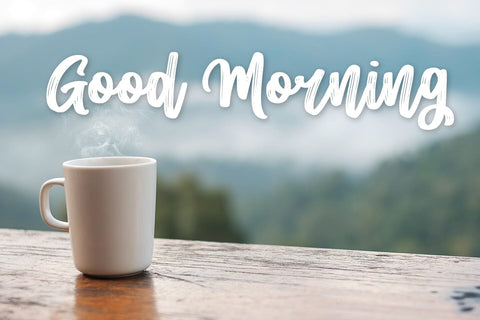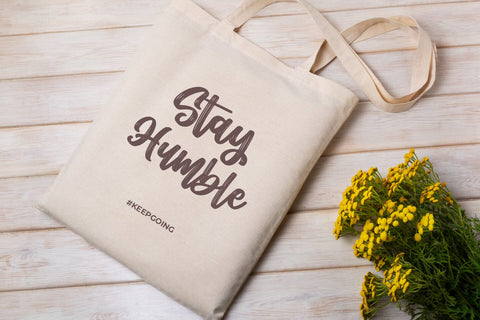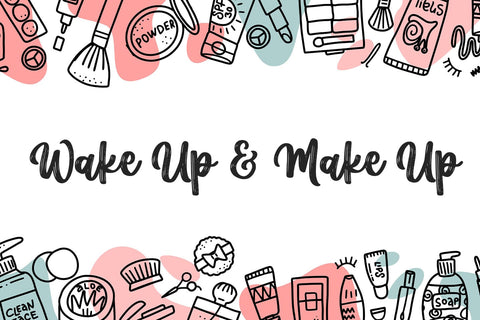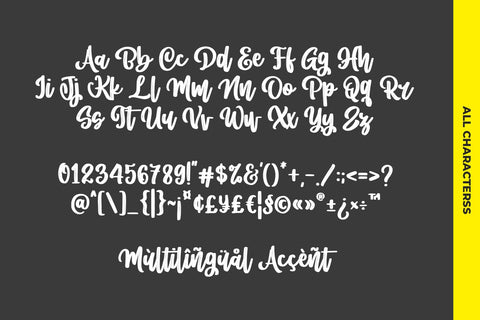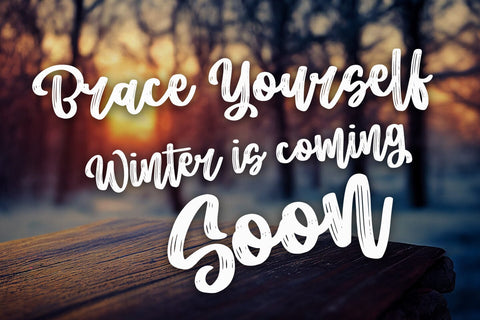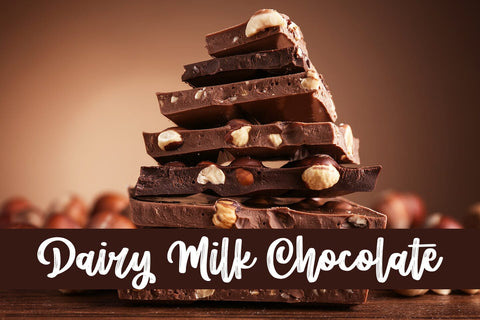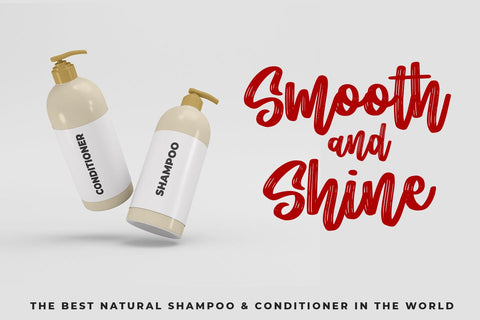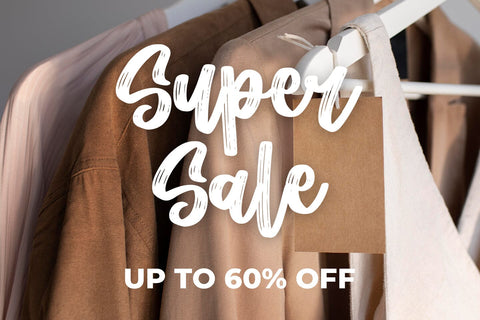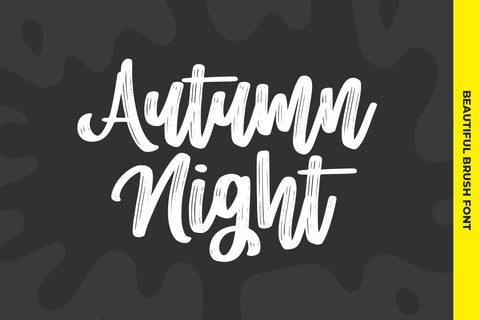
Autumn Night
introducing
AUTUMN NIGHT
- beautiful brush font -
AUTUMN NIGHT is a natural handwriting font.
It is great for lettering, quotes, mugs, tote bag designs, cards, banners, social media, and anything of craft projects that needs a natural touch.
I created some ligatures to make it look so natural
- Numeral
- Punctuation
- Multilingual